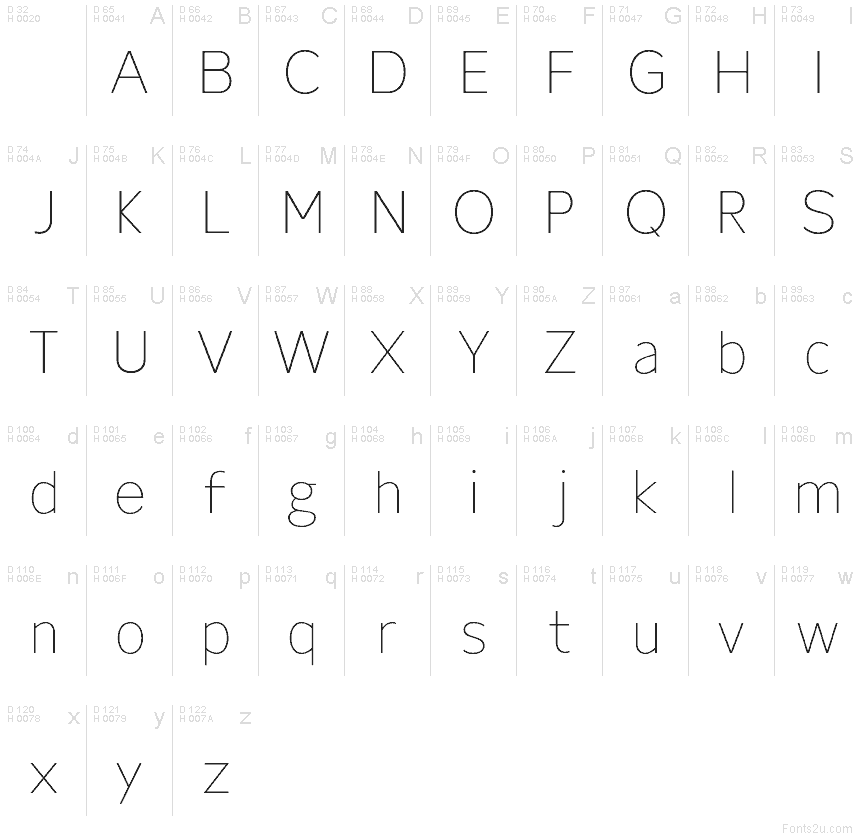
CS Clingan Regular Demo
CS Clingan font by Craft Supply Co. is a free light sans serif display font. Built on ultra-thin, evenly drawn strokes with soft, rounded terminals and generous breathing room, it carries a calm, modern poise. The geometry feels clean without getting clinical; its airy spacing and smooth curves create a whisper-light rhythm that reads crisp in larger sizes and adds refinement without shouting.
Using CS Clingan, headlines and wordmarks gain a weightless elegance that shines on skincare packaging, fashion lookbooks, editorial captions, portfolio sites, minimalist posters, and lifestyle branding. This free font’s open structure and steady cadence keep layouts clear and uncluttered. Pair it with a warm serif for body text, and size CS Clingan up slightly (with a touch of extra tracking) to preserve those delicate hairlines on screen.